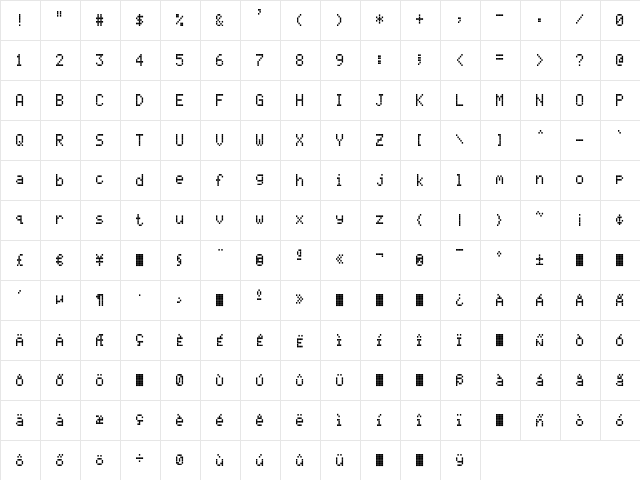
CallFourS-Regular Font Preview
CallFourS-Regular Regular
CallFourS-Regular Font Details
Design Context for CallFourS-Regular Typeface
CallFourS-Regular takes a measured approach to typography — its balanced proportions and neutral character make it a reliable workhorse for both digital and print work.